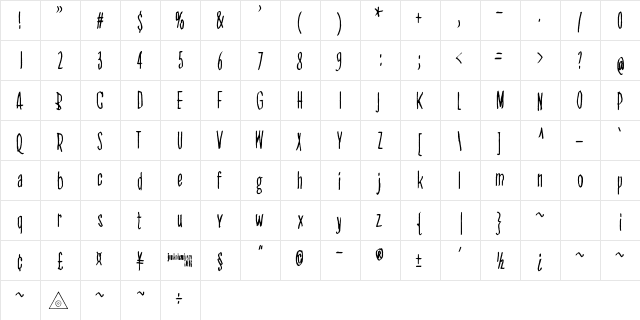
All Seeing Eye Regular
| Foundry | junkohanhero |
| Designer | junkohanhero |
Design Context for All Seeing Eye Typeface
All Seeing Eye takes a measured approach to typography — its balanced proportions and neutral character make it a reliable workhorse for both digital and print work.